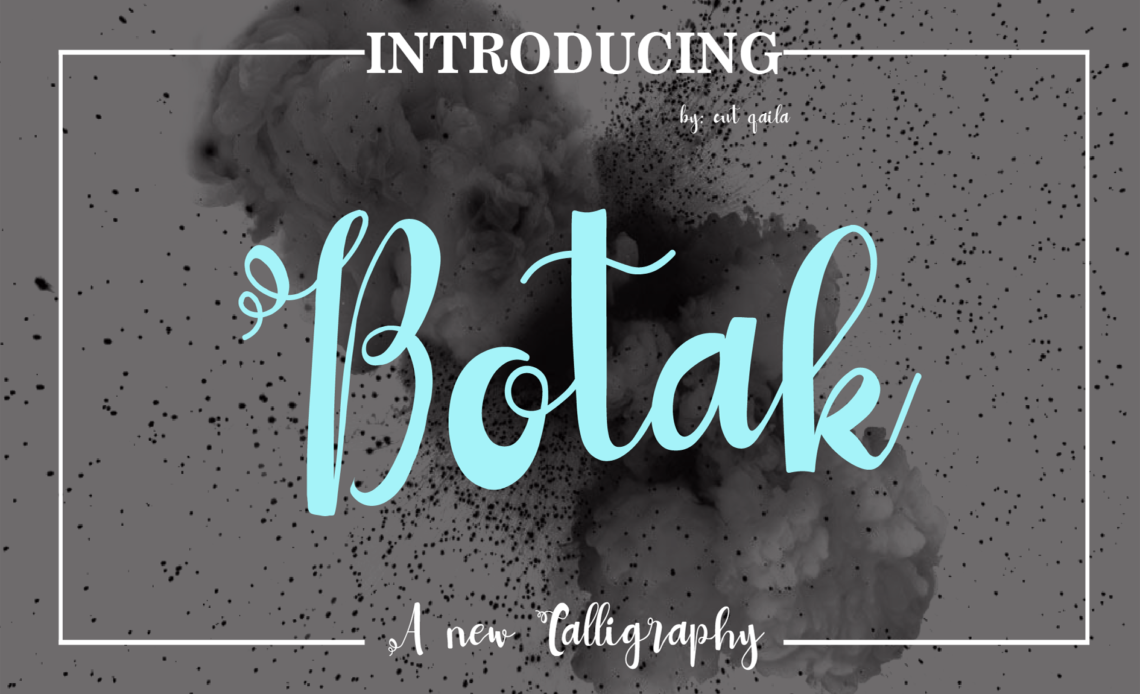
Botak Font
Dive into the world of Botak Font, where elegance meets modernity. This captivating script font boasts a meticulously crafted calligraphic style, adding an irresistible charm to your creative endeavors. Its graceful curves and playful flourishes evoke a sense of timeless sophistication.
Botak Font's versatility knows no bounds. Whether you're crafting stunning invitations, designing eye-catching logos, or adding a touch of whimsy to your social media posts, this font will elevate your designs to new heights. Its exquisite character set and extensive language support empower you to express your creativity in multiple tongues.
Embrace the allure of Botak Font's enchanting personality. Let its gentle strokes captivate your audience, evoking emotions that resonate deep within. Experience the joy of creating captivating content that leaves a lasting impression, all thanks to the transformative power of Botak Font.
Each letter in this extraordinary font is a work of art, designed to evoke a sense of wonder and inspiration. Its modern aesthetic seamlessly blends with its classic charm, creating a timeless appeal that will endure for years to come.
Indulge in the beauty of Botak Font and witness the transformation of your creative visions. Its enchanting essence will ignite your imagination, empowering you to create designs that captivate hearts and minds. Embrace the allure of this exceptional font and let your creativity soar to new heights.